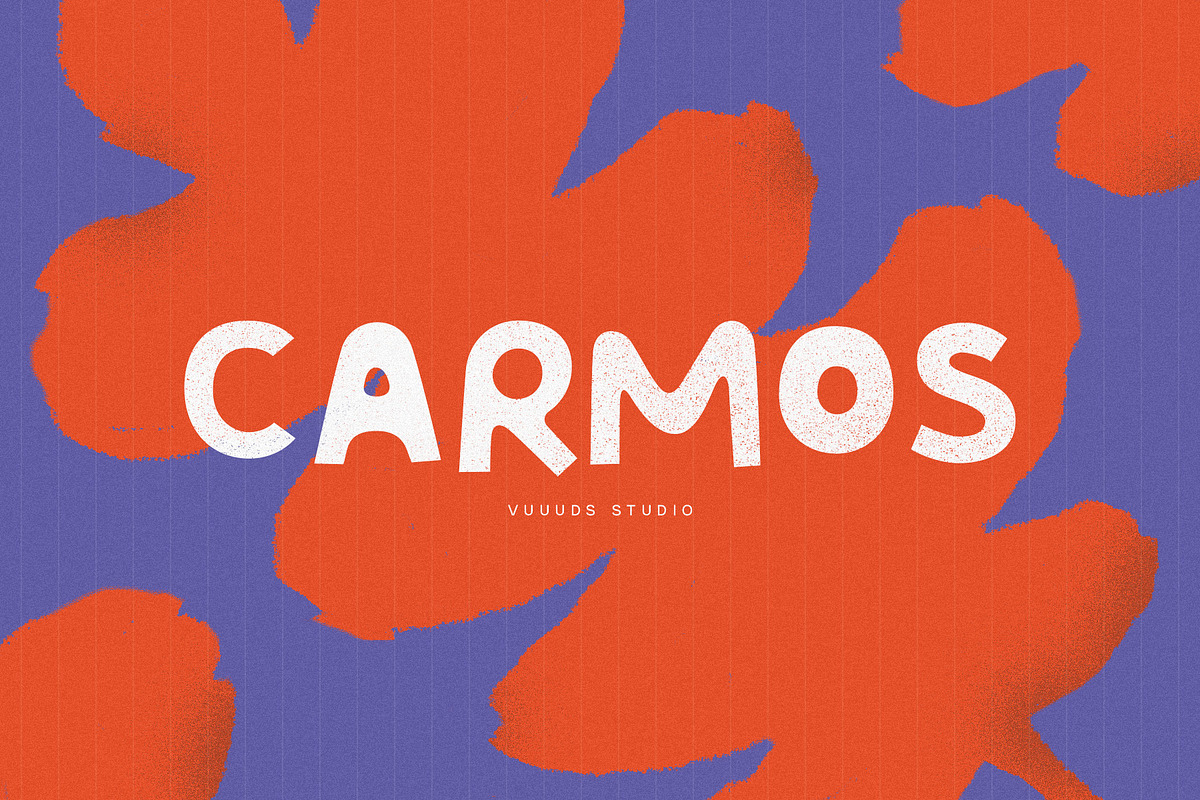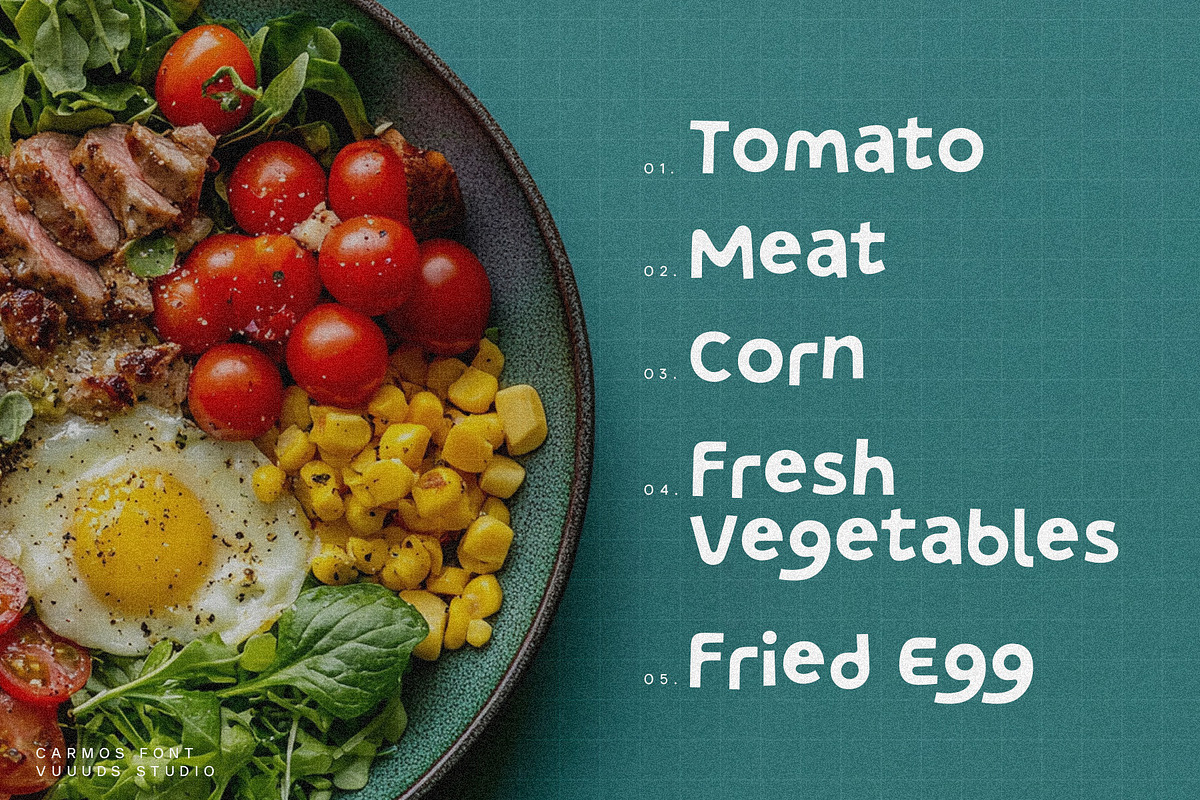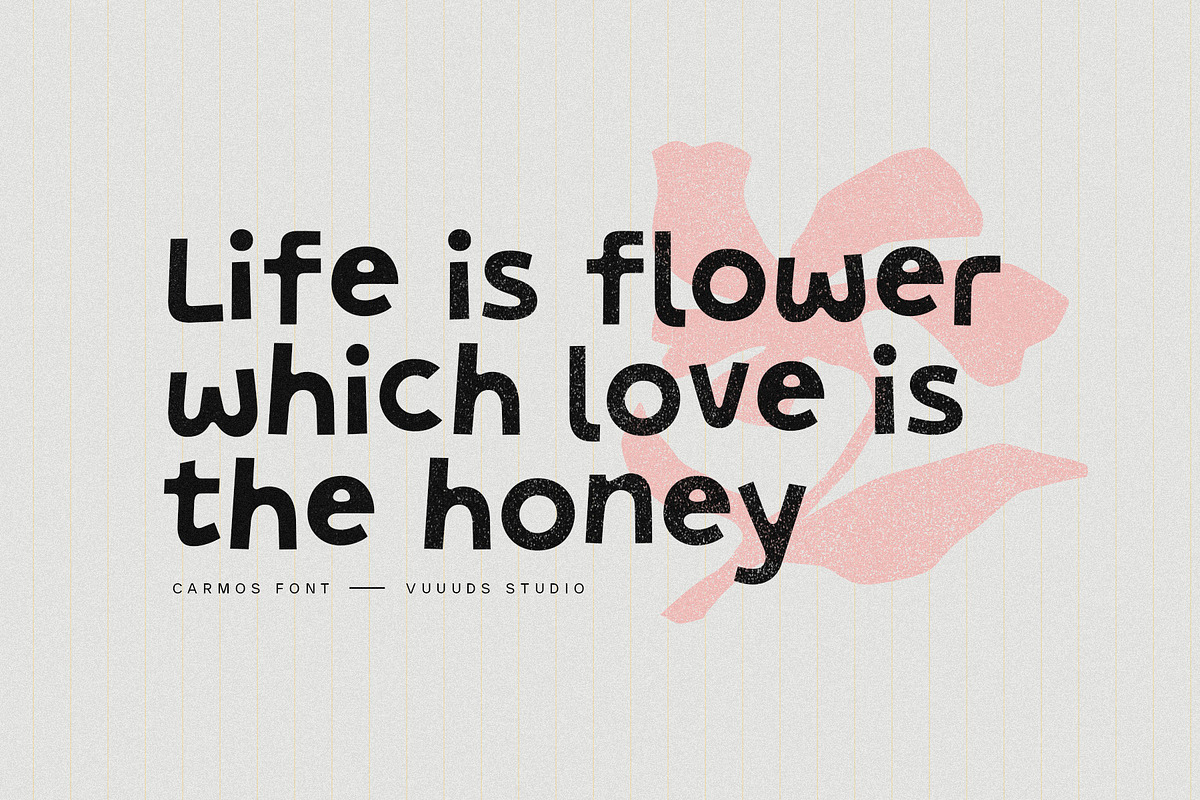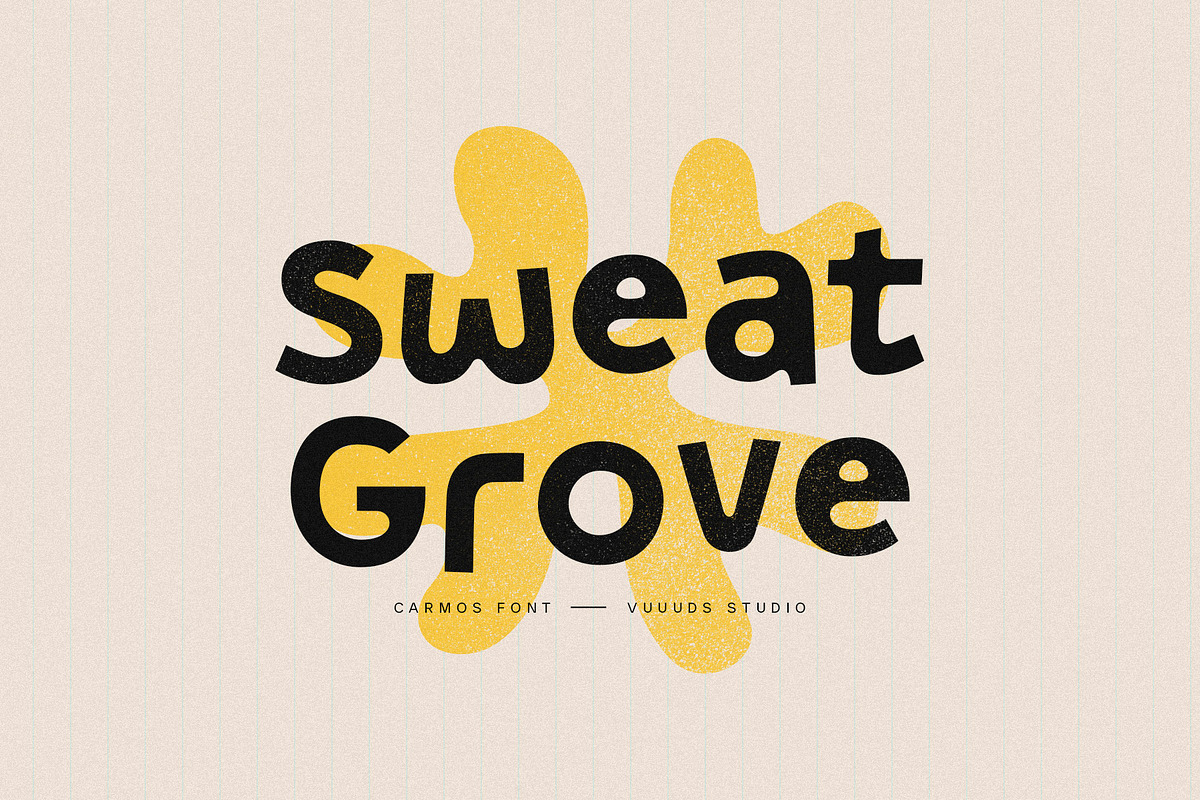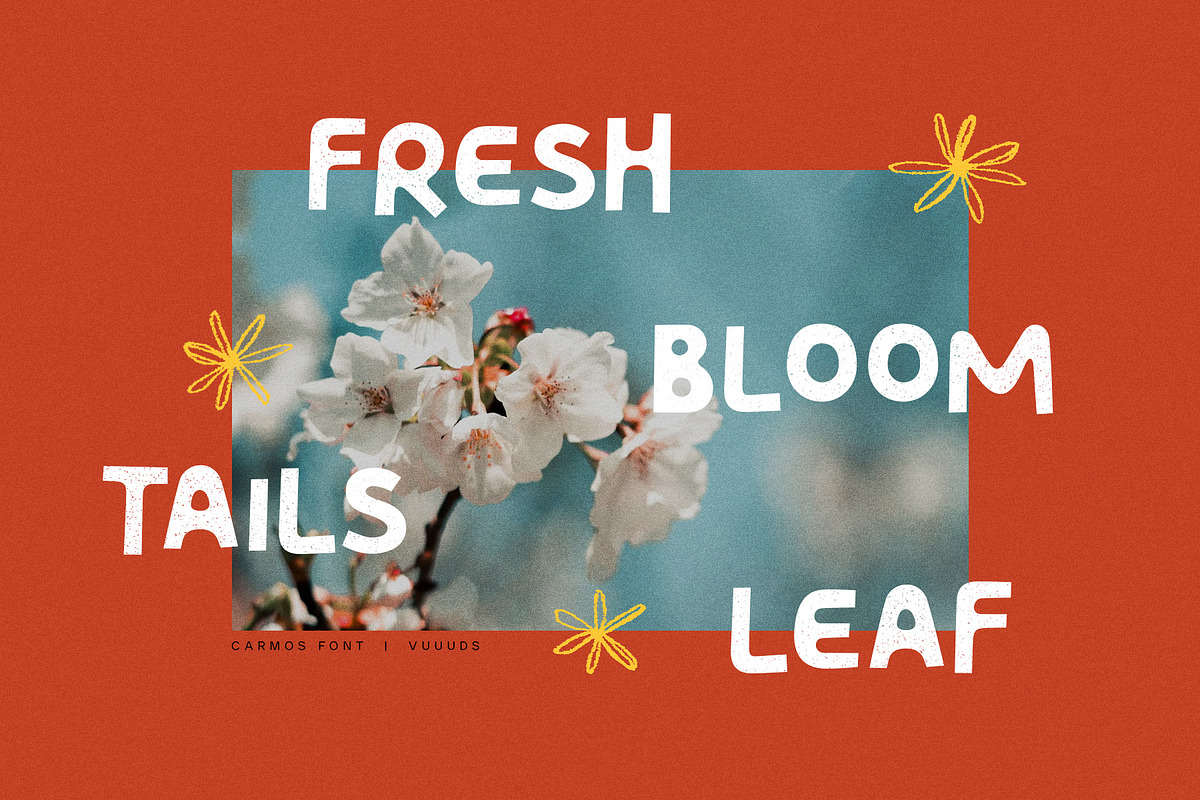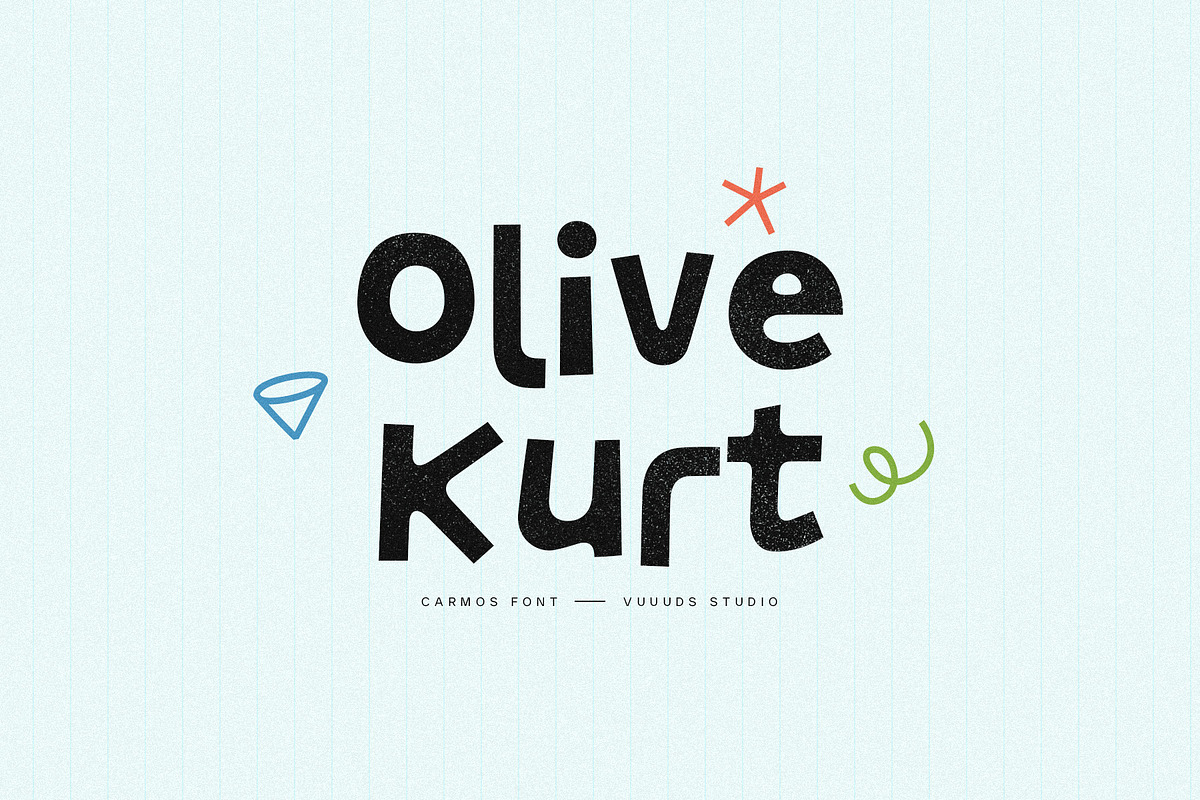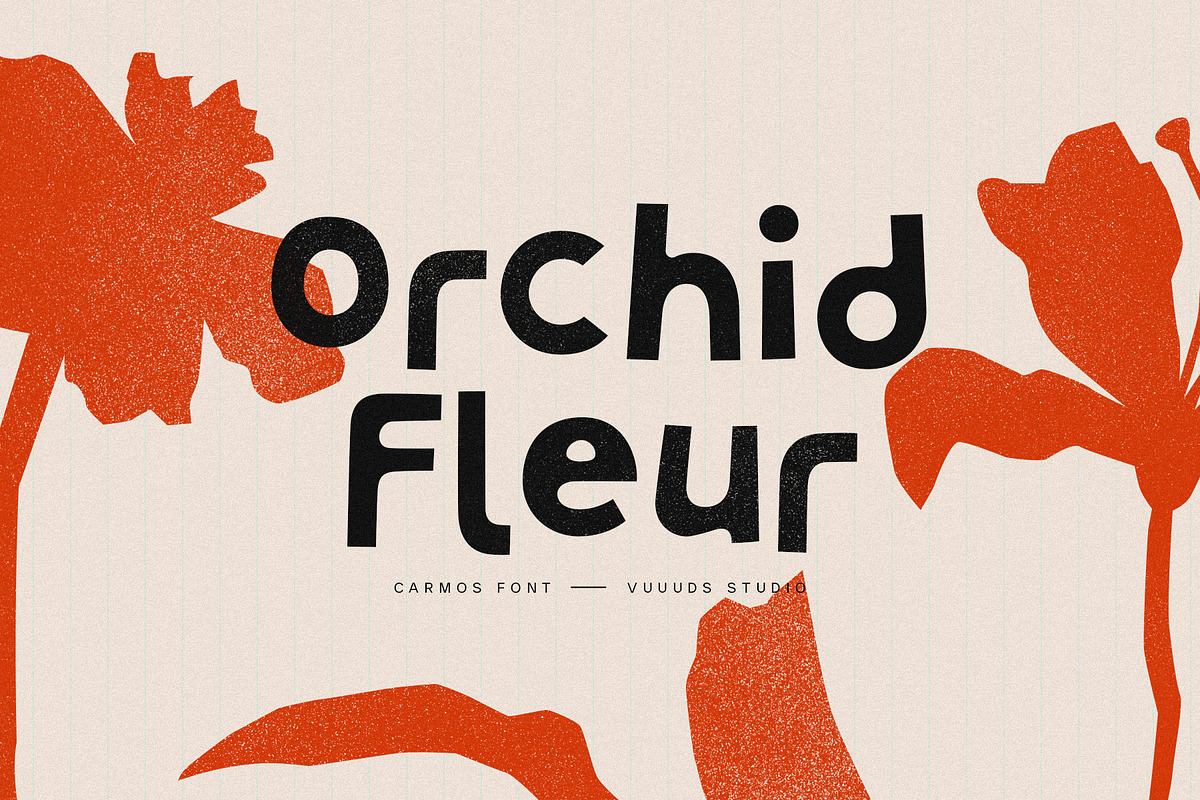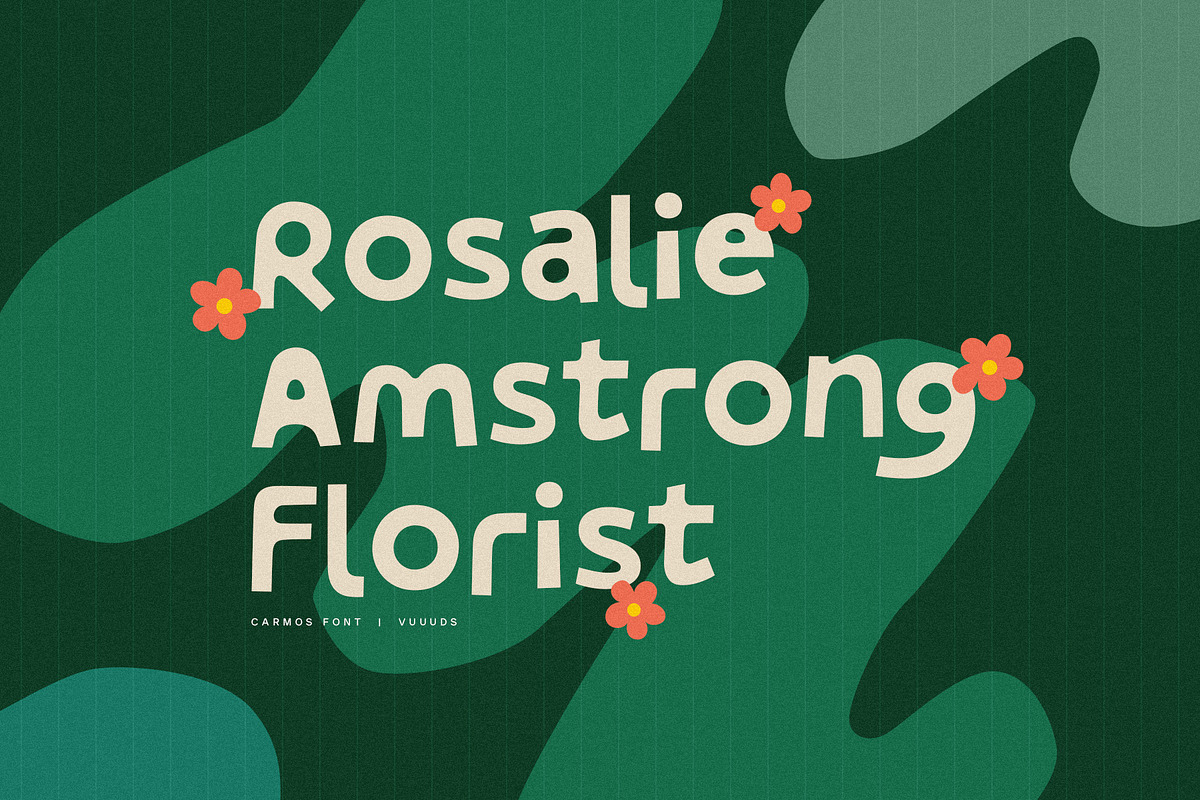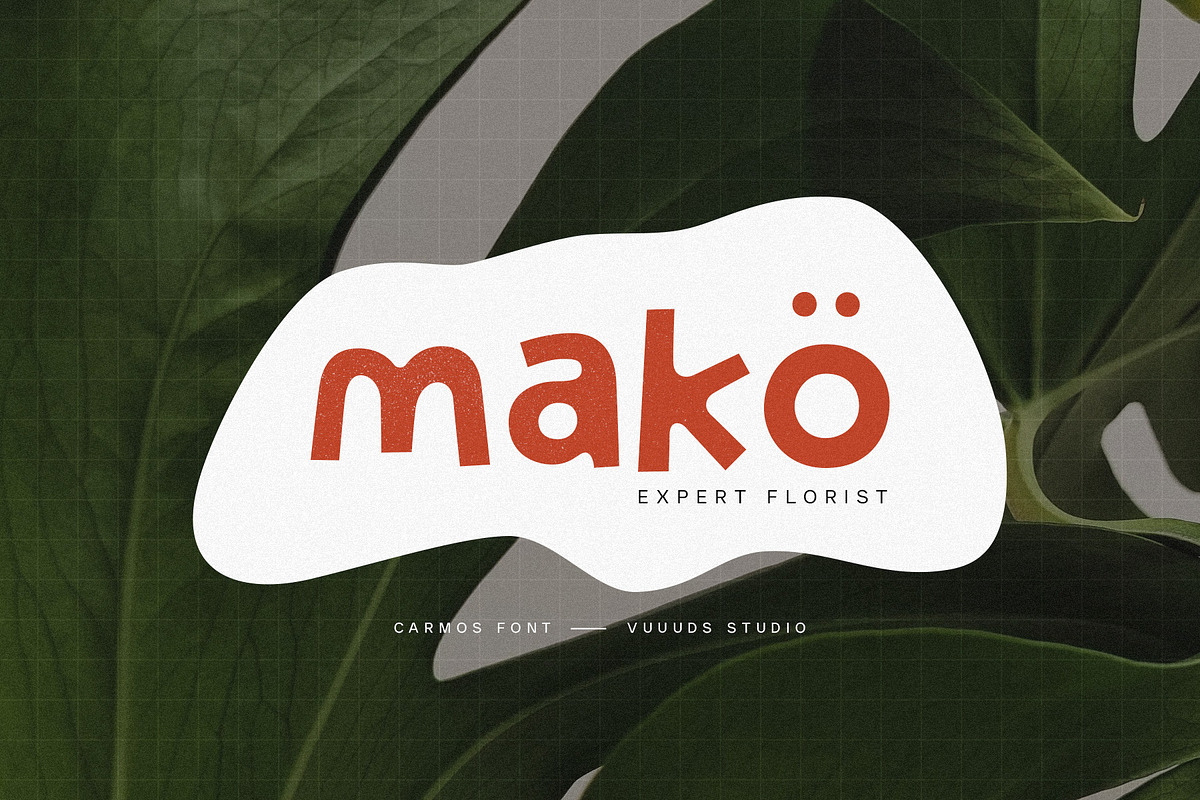
Carmos
Introducing Carmos Font! Carmos is casual bold sans serif font, every single letters have been uniquely crafted. This font including beautiful alternate glyph. You can access the alternate glyph via Font Book (Mac user) or Windows Character Map (Windows user), I've been put the link tutorial inside the zip file.
Multi languages support: ÀÁÂÃÄÅĂÆÇÈÉÊËÌÍÎÏÐÑÒÓÔÕÖØÙÚÛÜŸÝ àáâãäåăæçèéêëìíîïðñòóôõöøùúûüýÿ